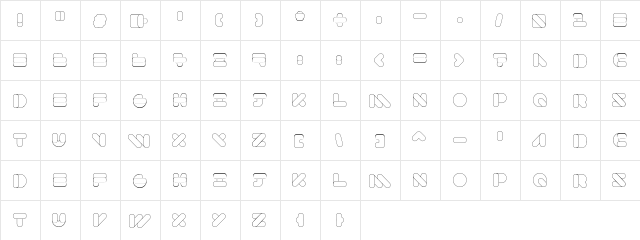
Solaria ExtraRoundedOutline
Design Context for Solaria Typeface
Solaria is built around its visual character rather than neutral utility — its distinctive forms are designed to make an impression at display sizes.
Font Pairing: Pair with a clean neutral sans-serif for body copy to let Solaria's character lead without overwhelming the composition.
Pro Tip: Treat Solaria as the centrepiece of your typographic hierarchy. One strong heading set in a decorative face can carry an entire layout.